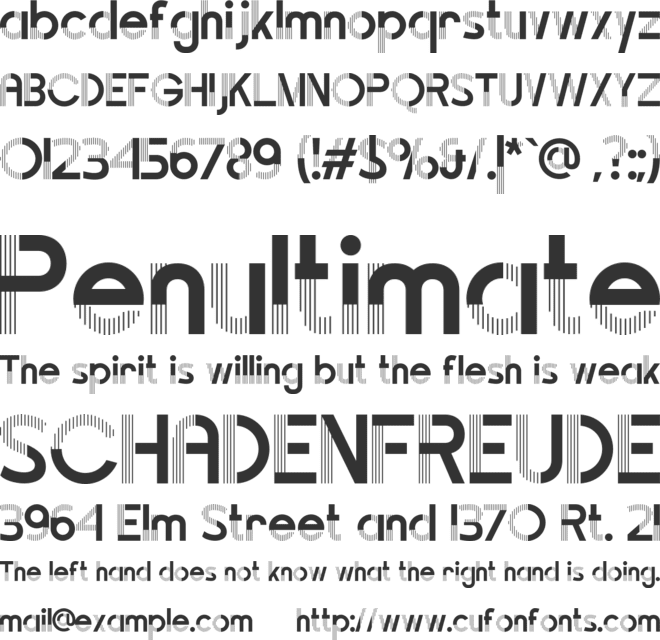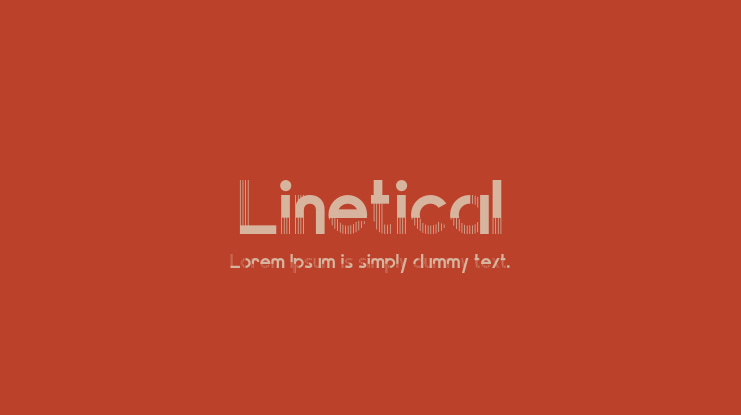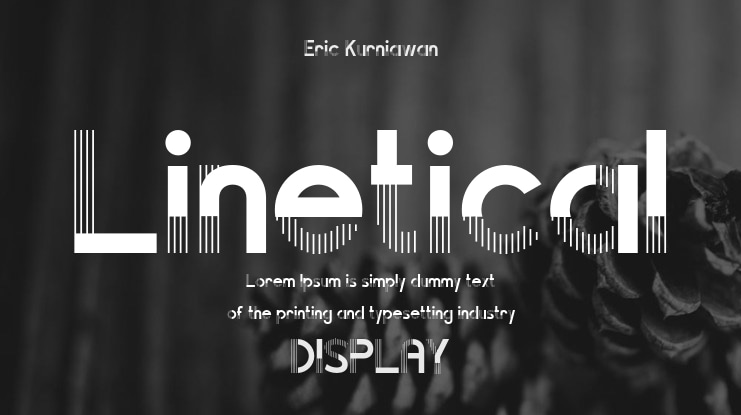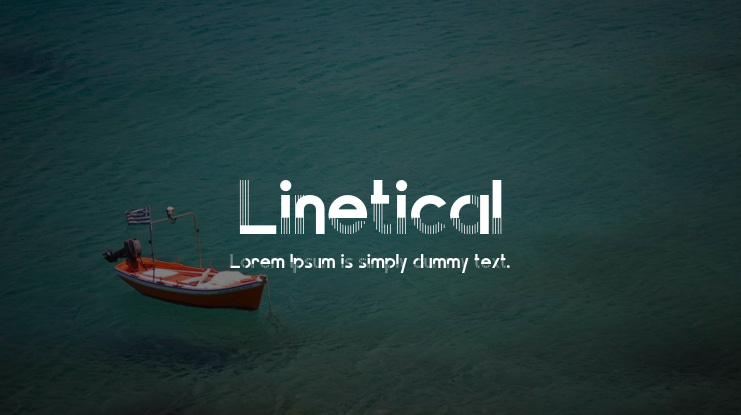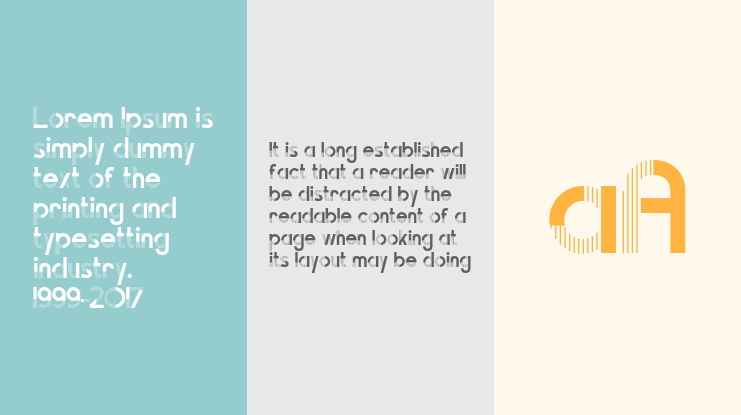
Linetical Font
Introducing Linetical, a geometrical typeface that blends the boldness of sans serif with delicate lines in each letter. This unique combination creates a modern aesthetic and visually dynamic look. This minimalist yet elegant font is perfect for capturing attention while maintaining sophistication. It is ideal for branding, headlines, and modern design.